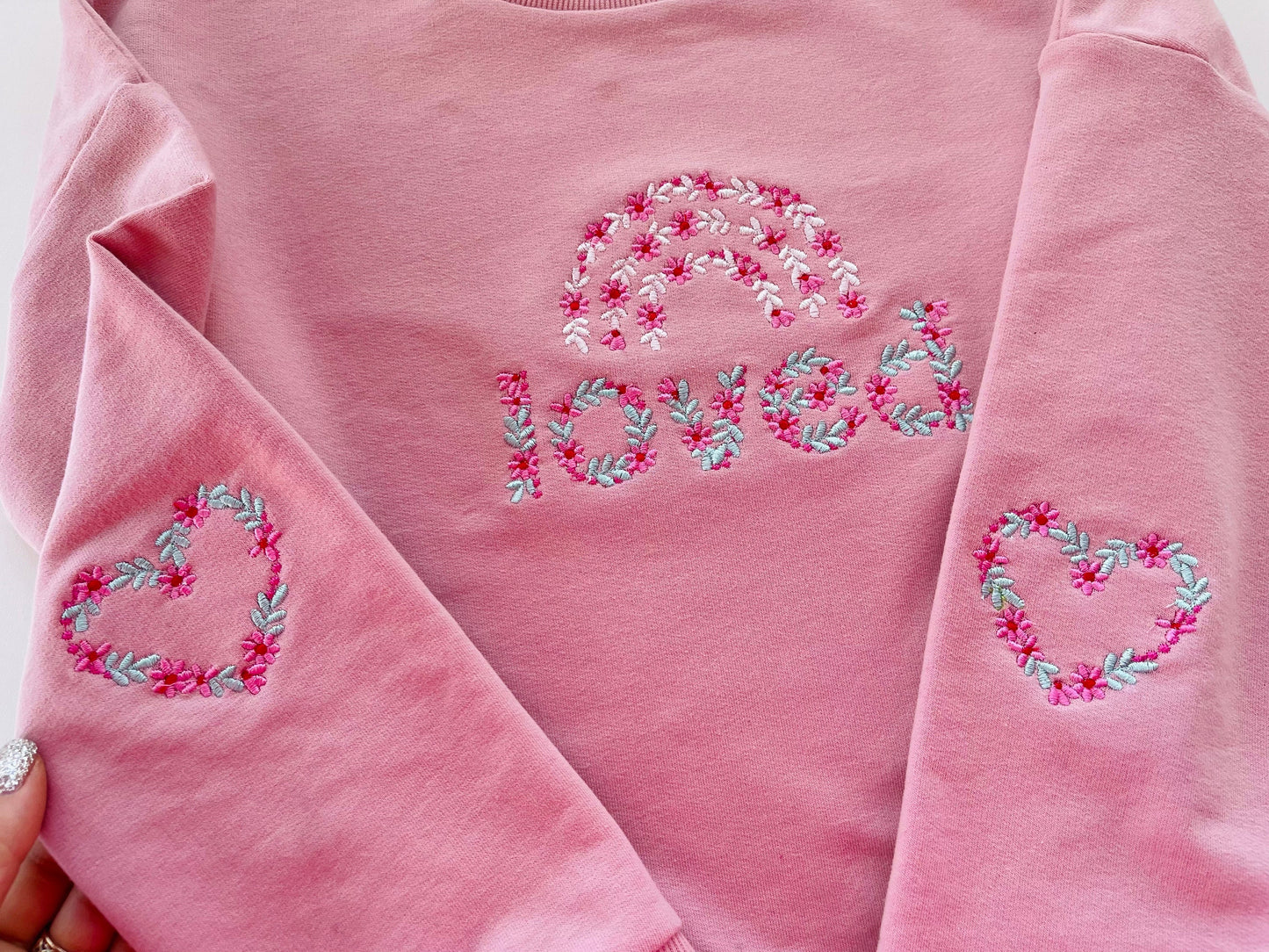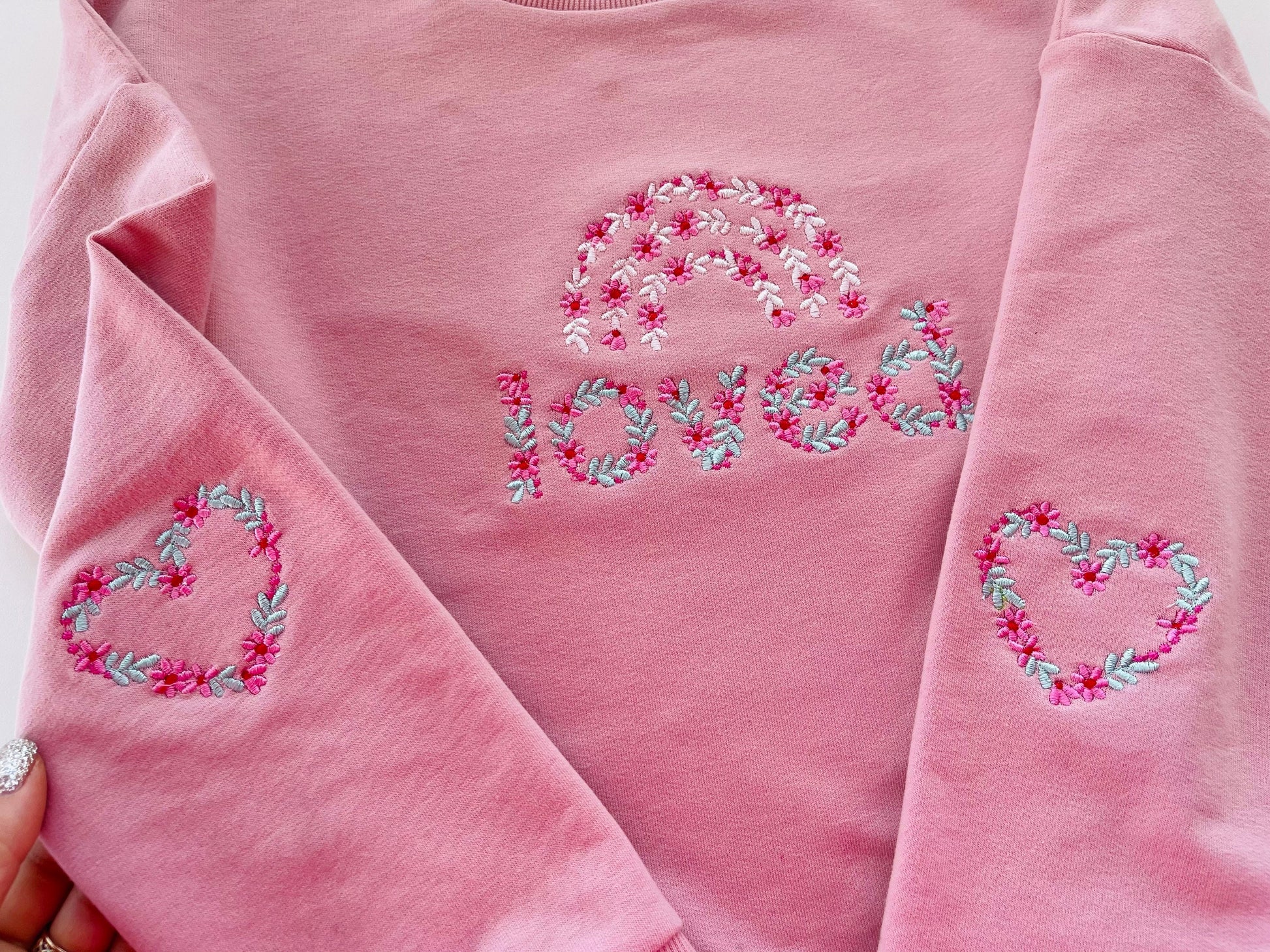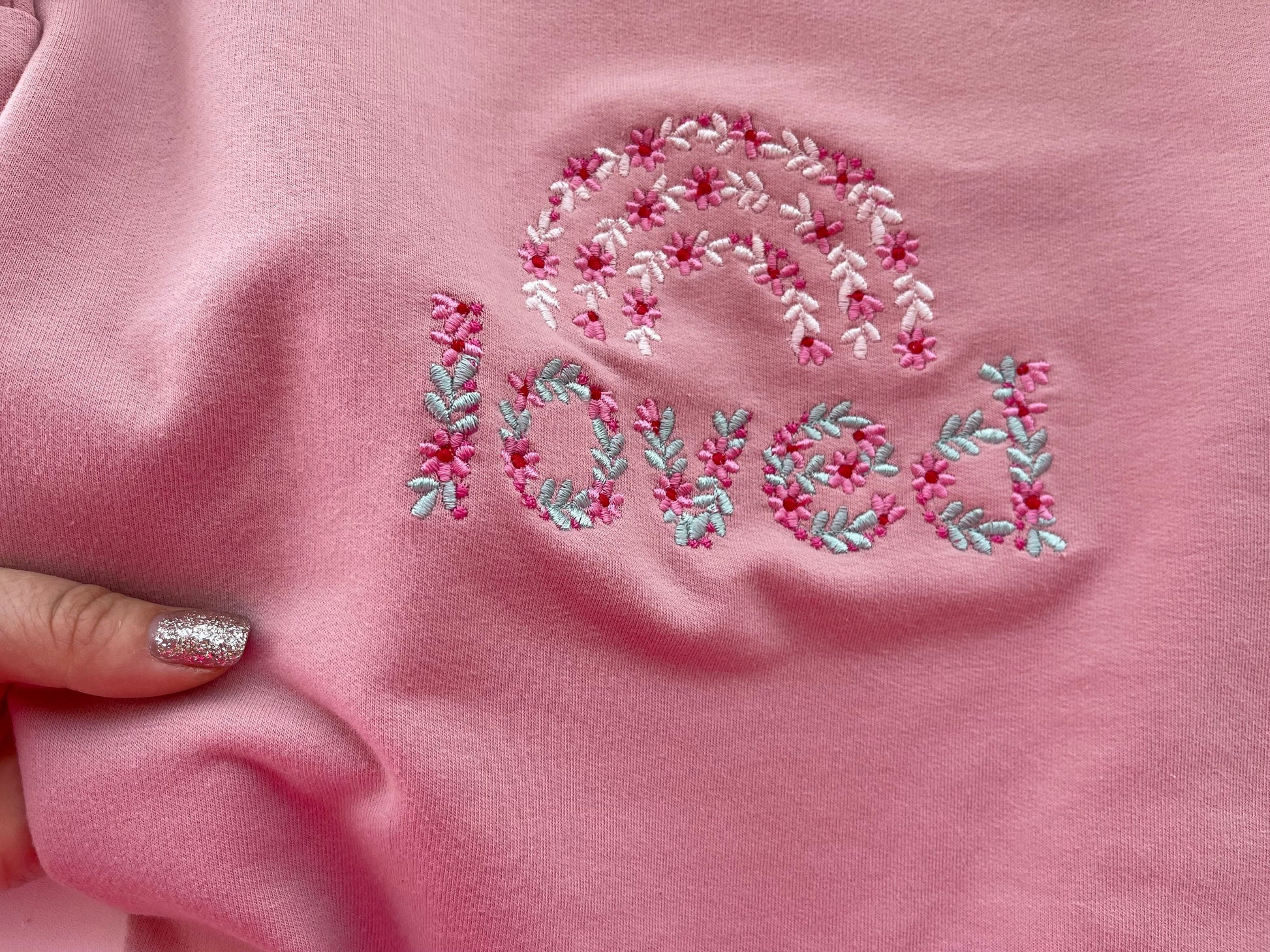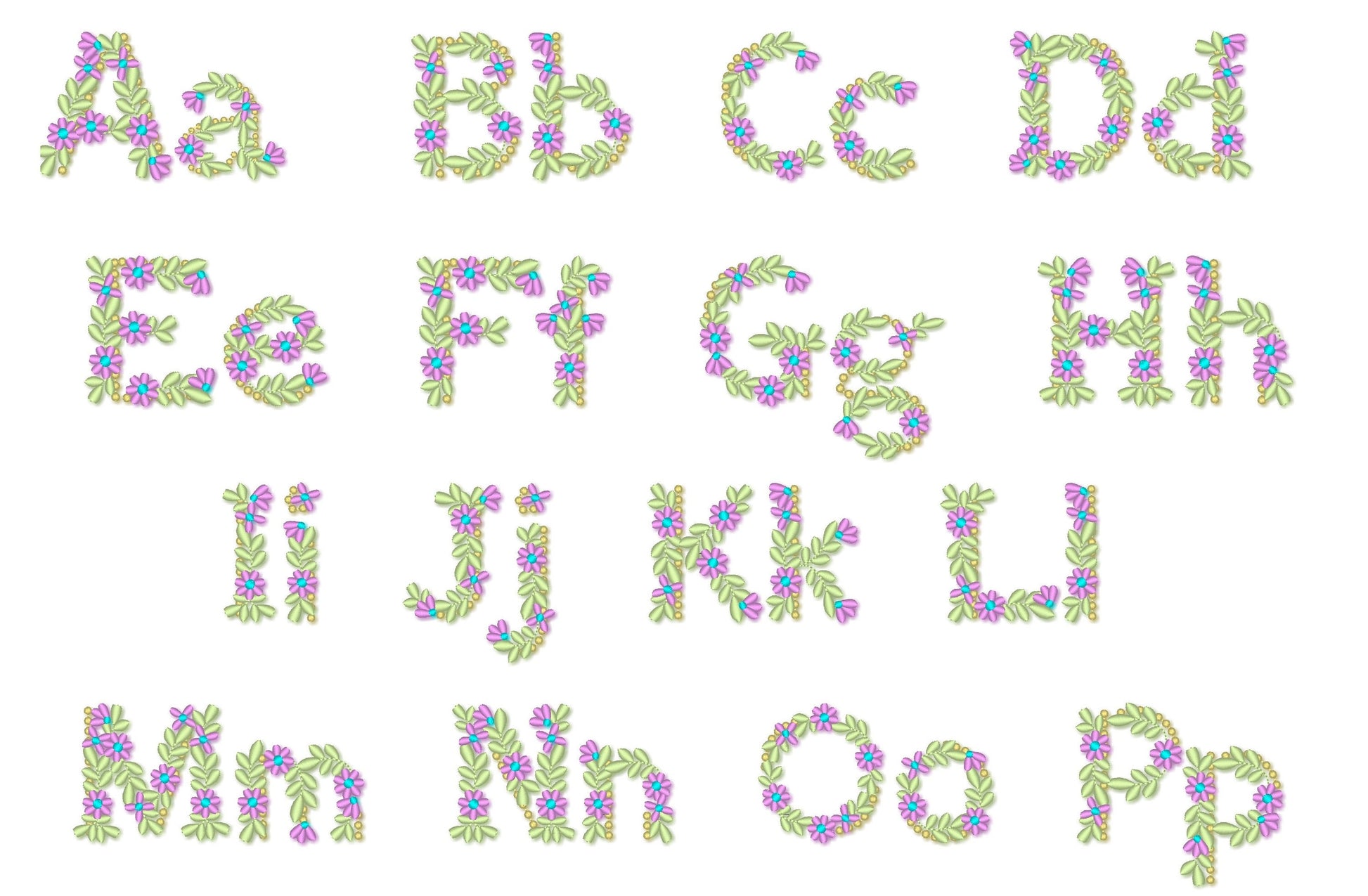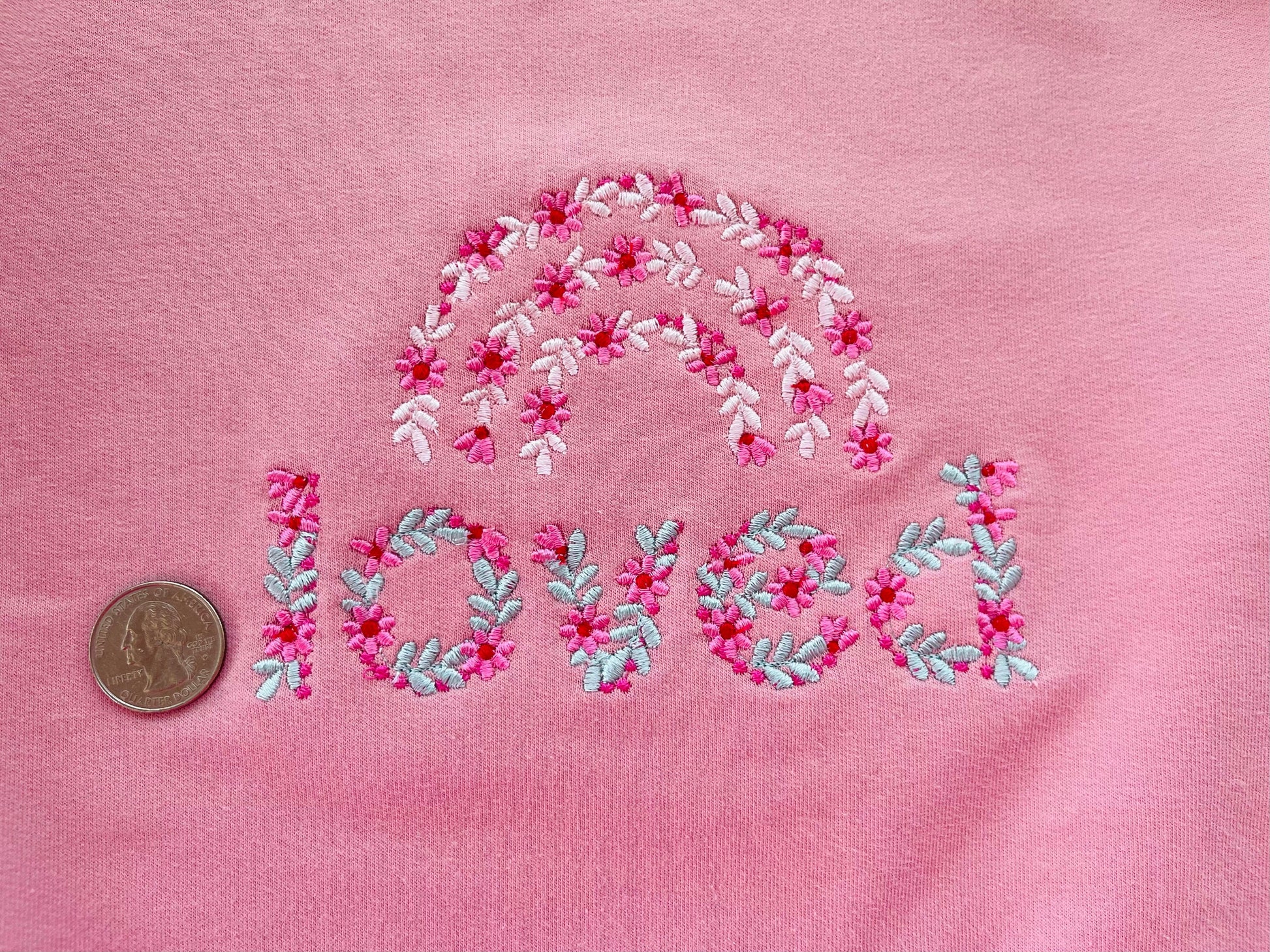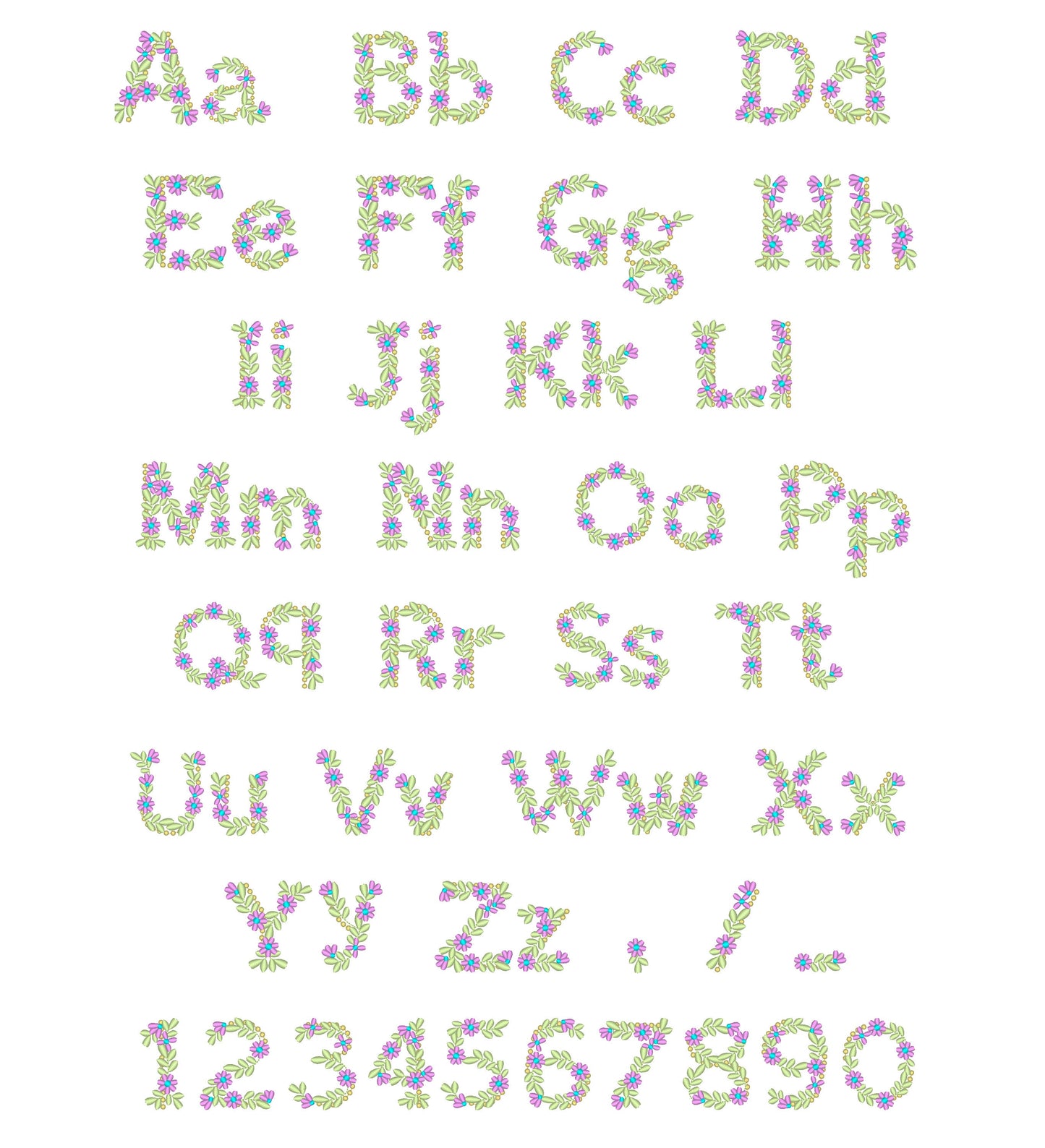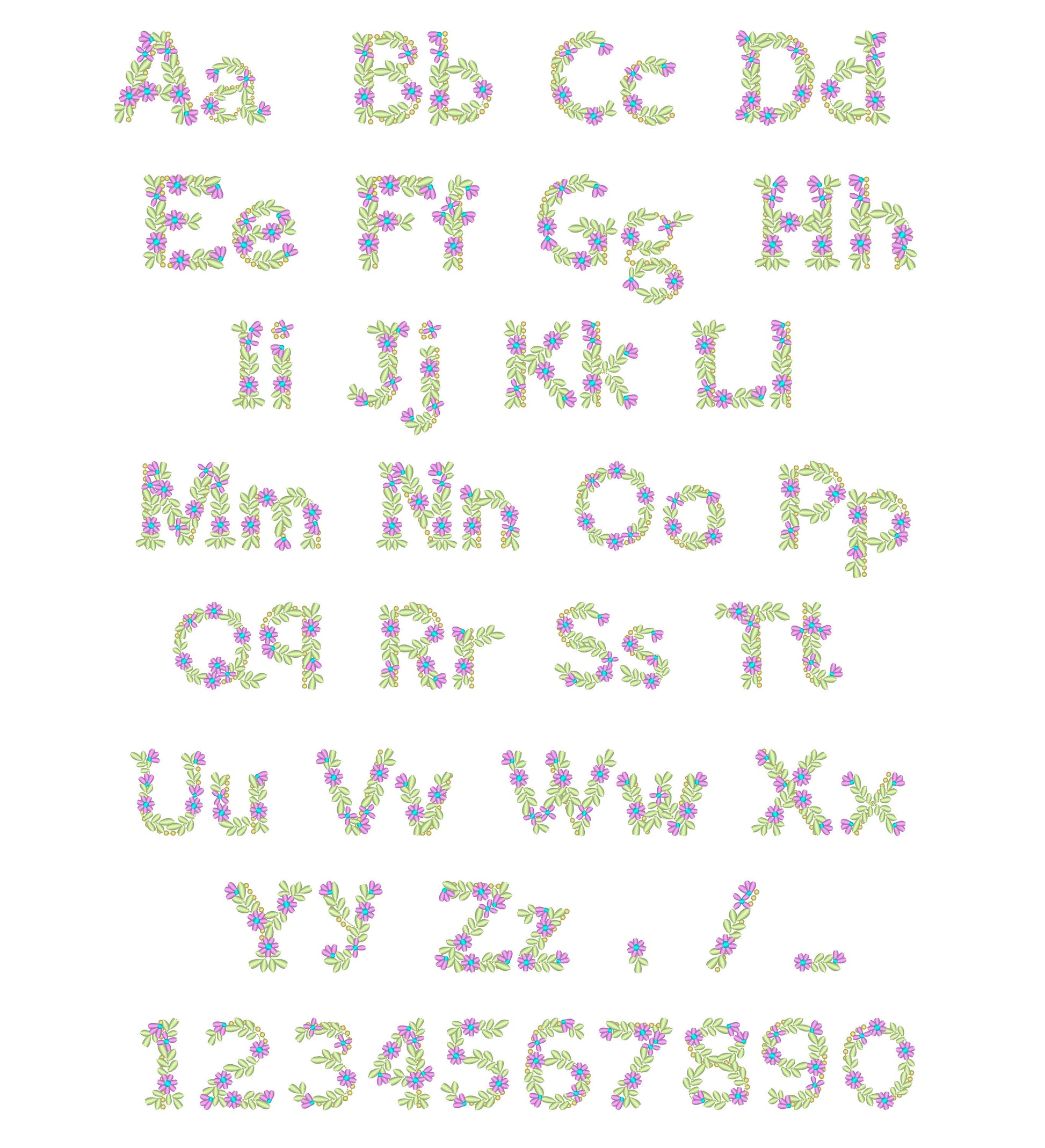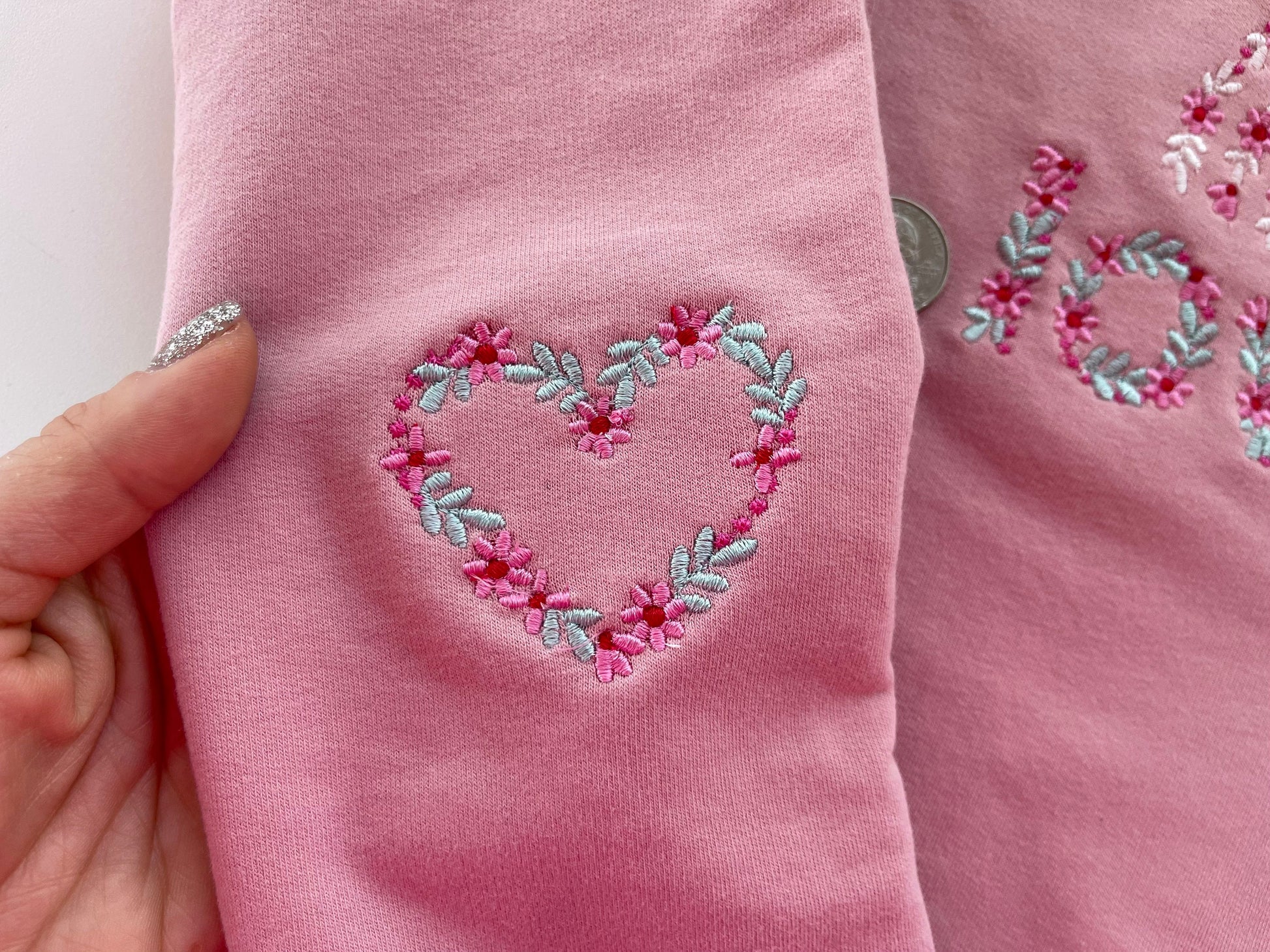
Or click to open the linkA spring floral mini font with flowers on the letters, for kids' names, dates and sweet words on shirts and gifts.
Uppercase and lowercase letters, numbers and punctuation in three sizes: 1.5, 1.7 and 2.5 inches. A floral heart add-on is included.